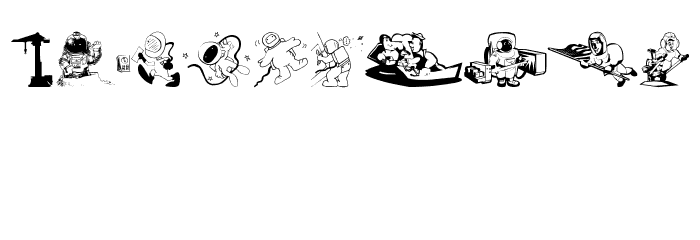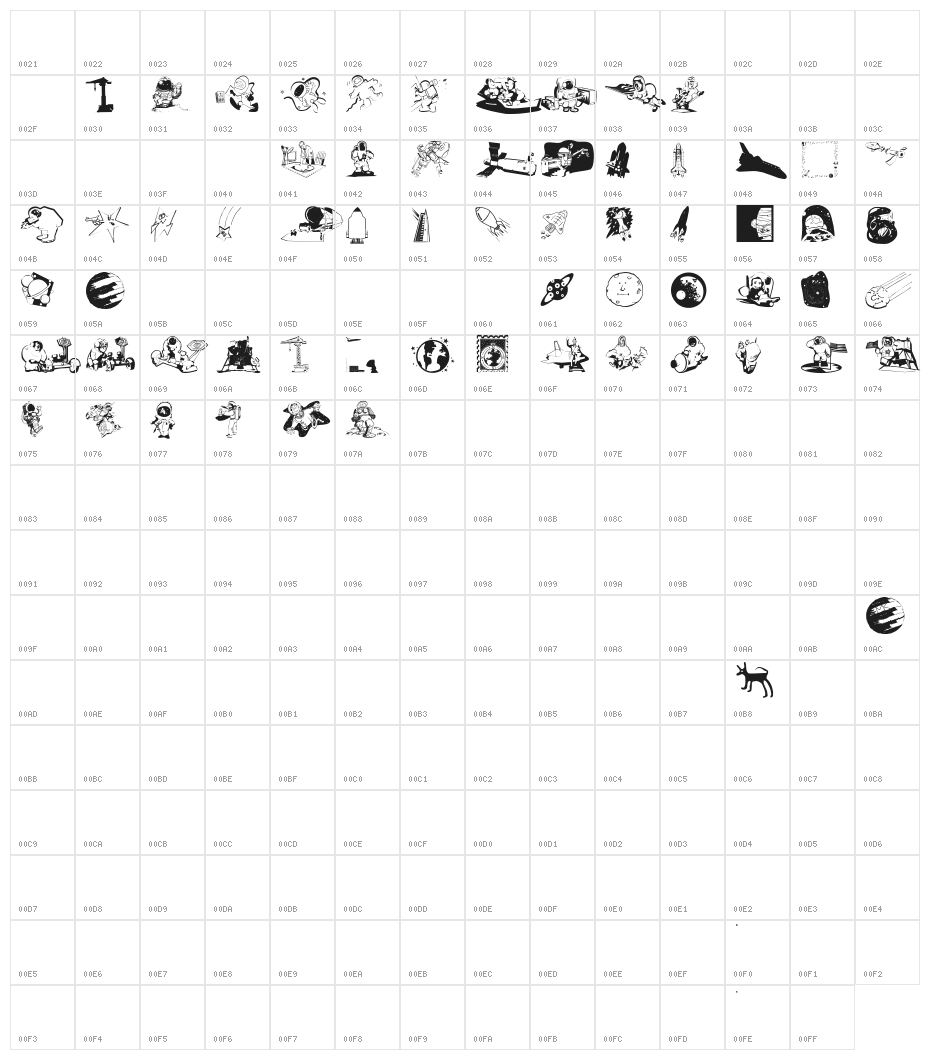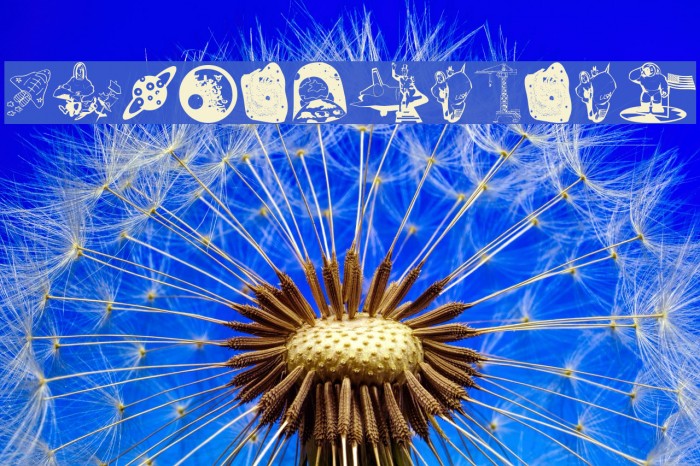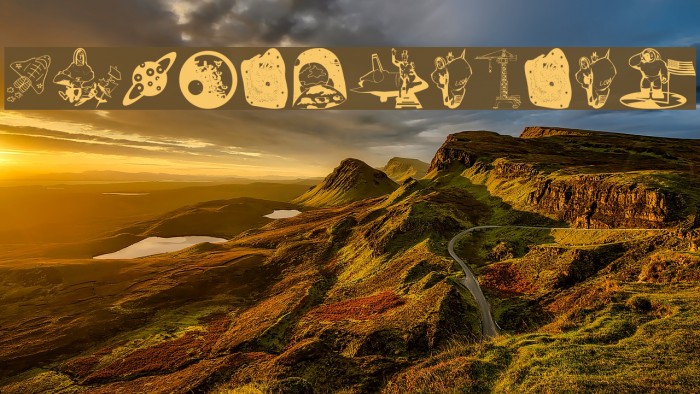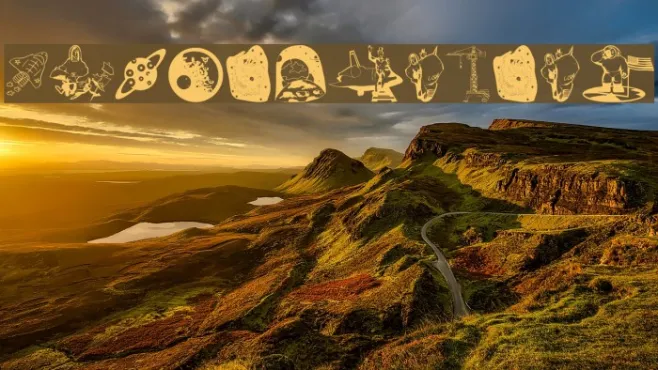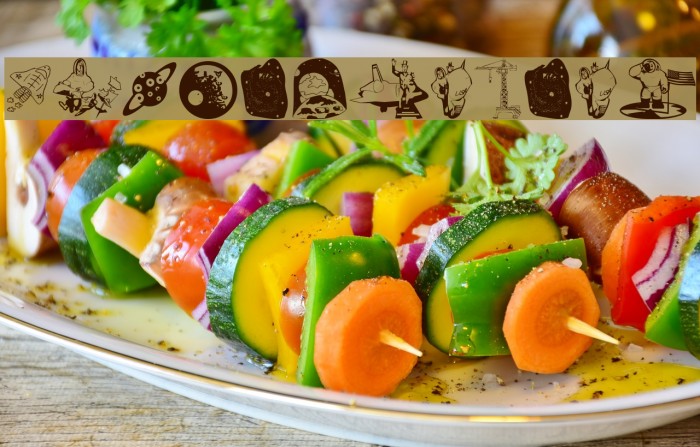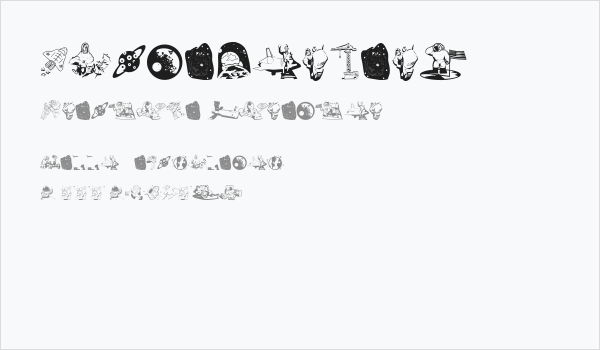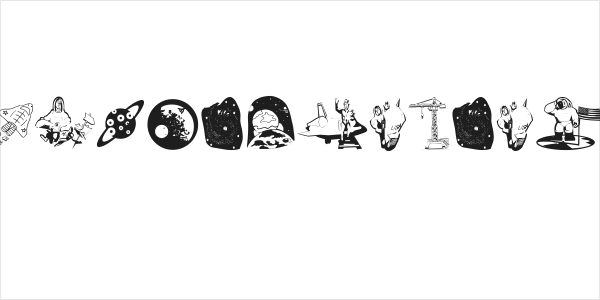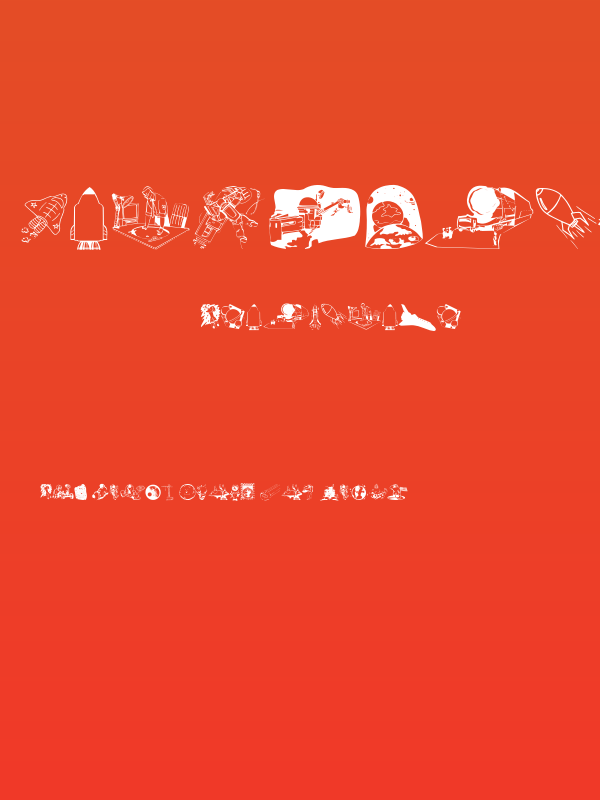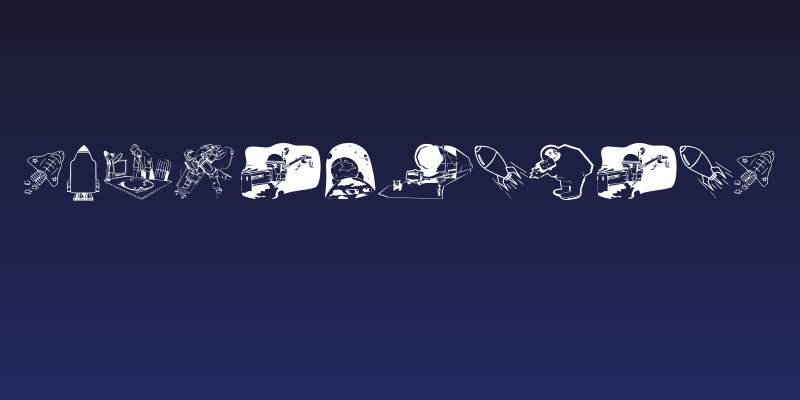
SpaceWorkers Font
SpaceWorkers Description
A decorative dingbat font featuring playful, cartoon-style illustrations of astronauts, rockets, planets, and space scenes, rendered in black and white with varied detail and whimsical character.
| Overall Style | Decorative, Whimsical, Playful |
| Use Case | Icons, Illustrations, Themed graphics |
| Proposed Projects | ChildrenΓ’β¬β’s books, educational posters, science fair materials, party invitations, themed decor, scrapbooking. |